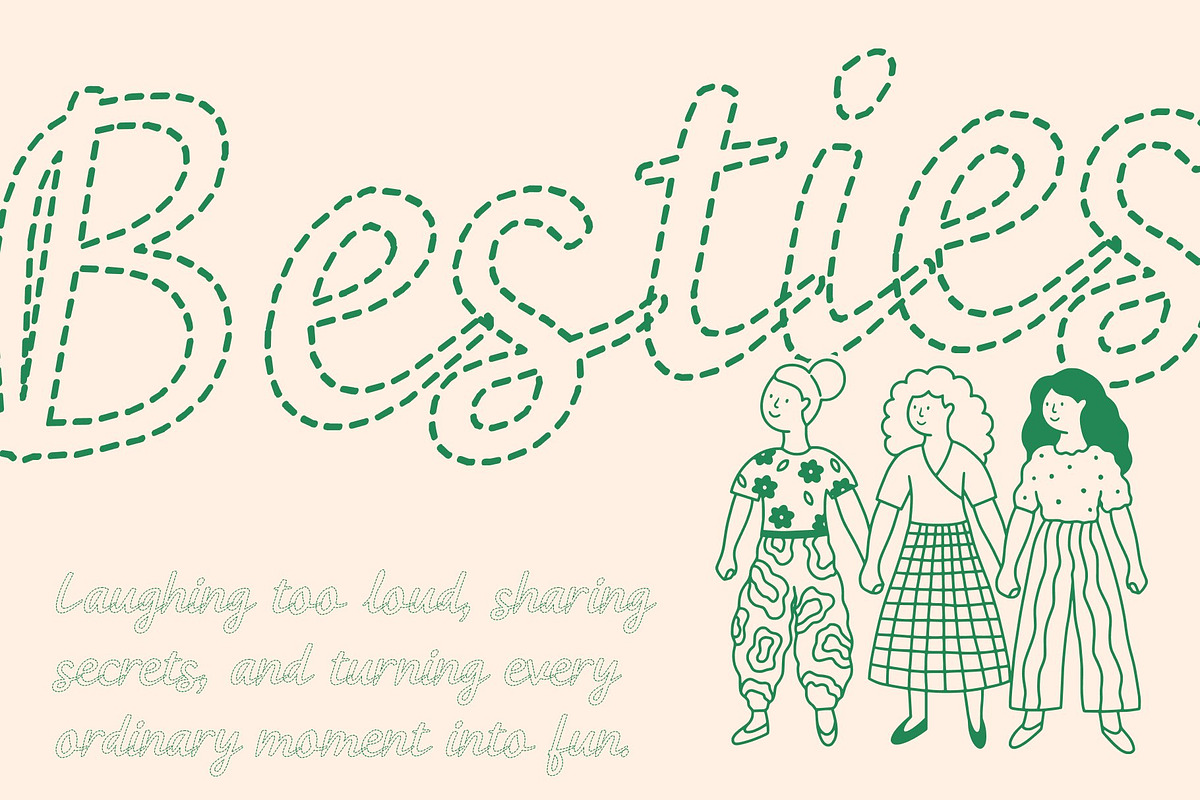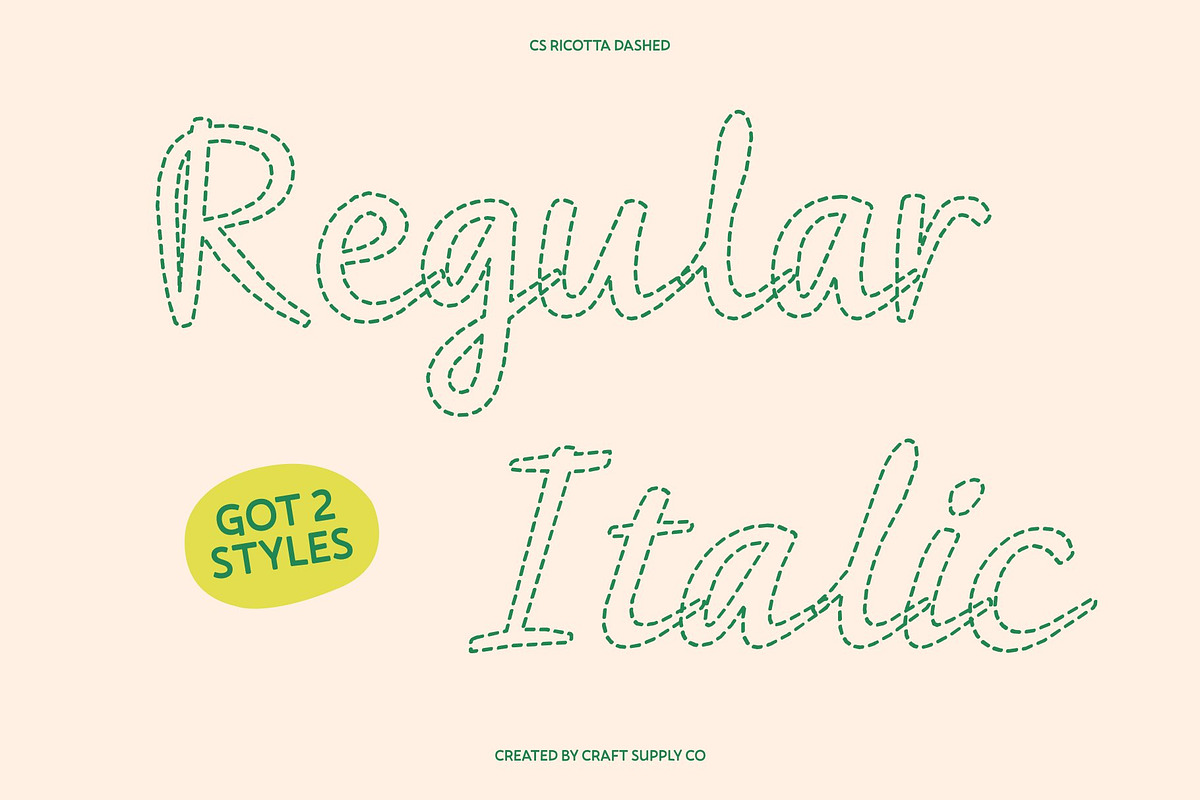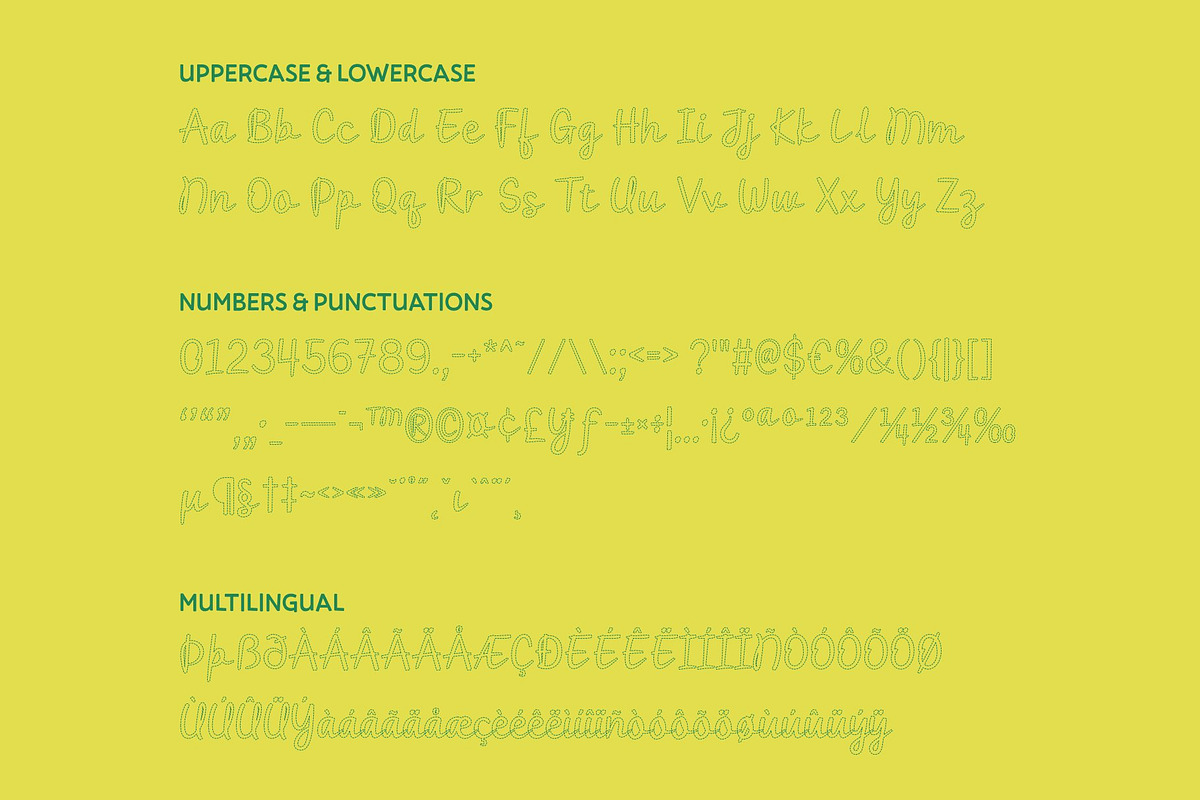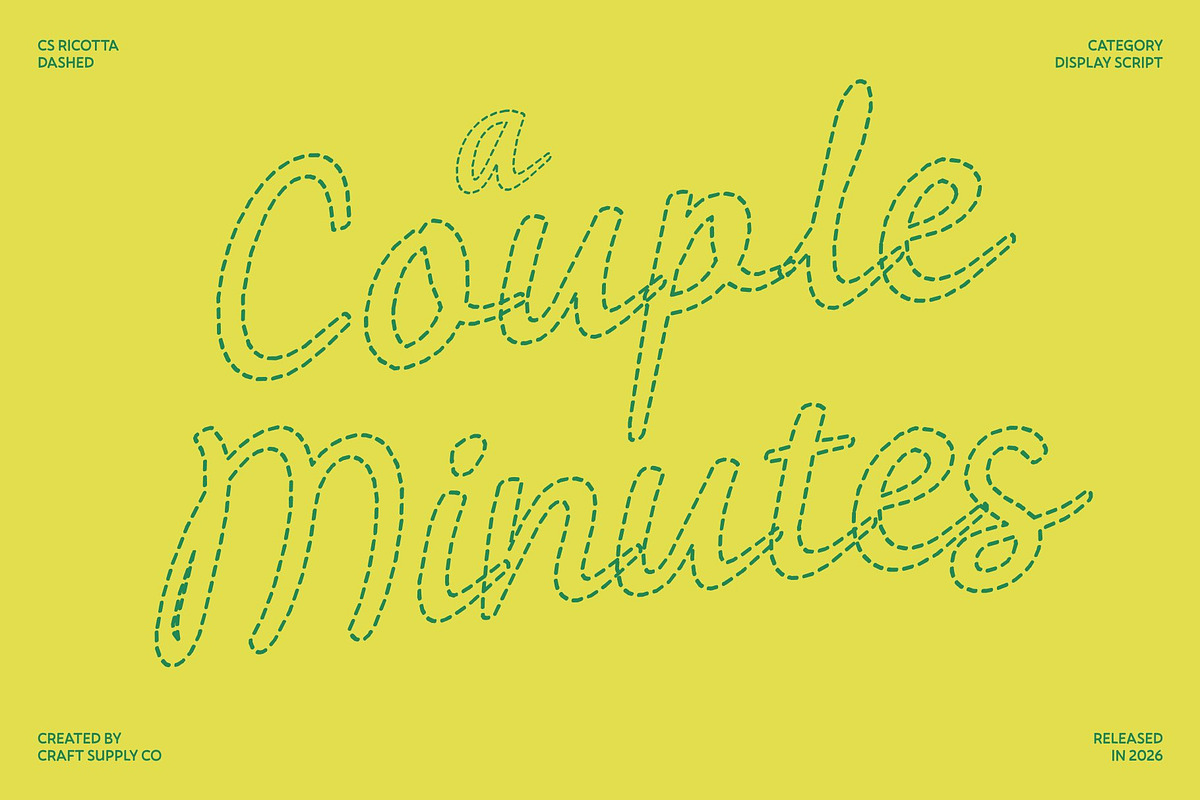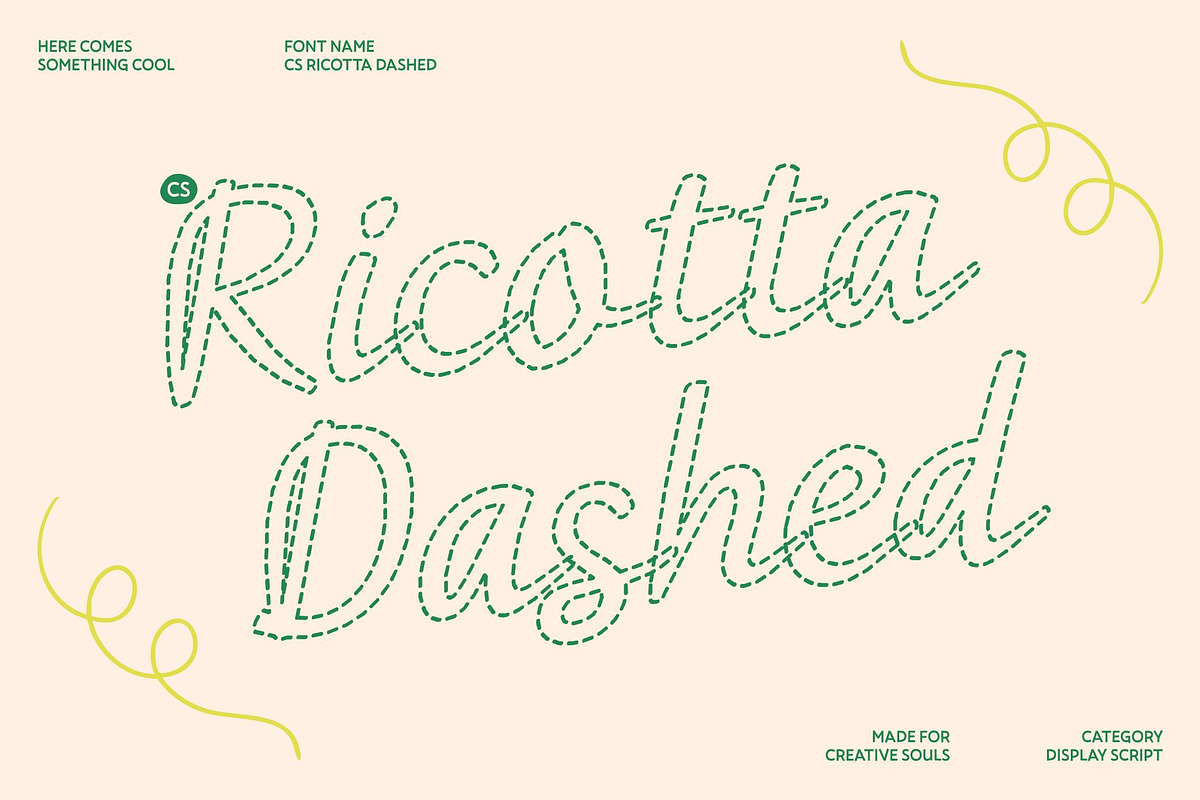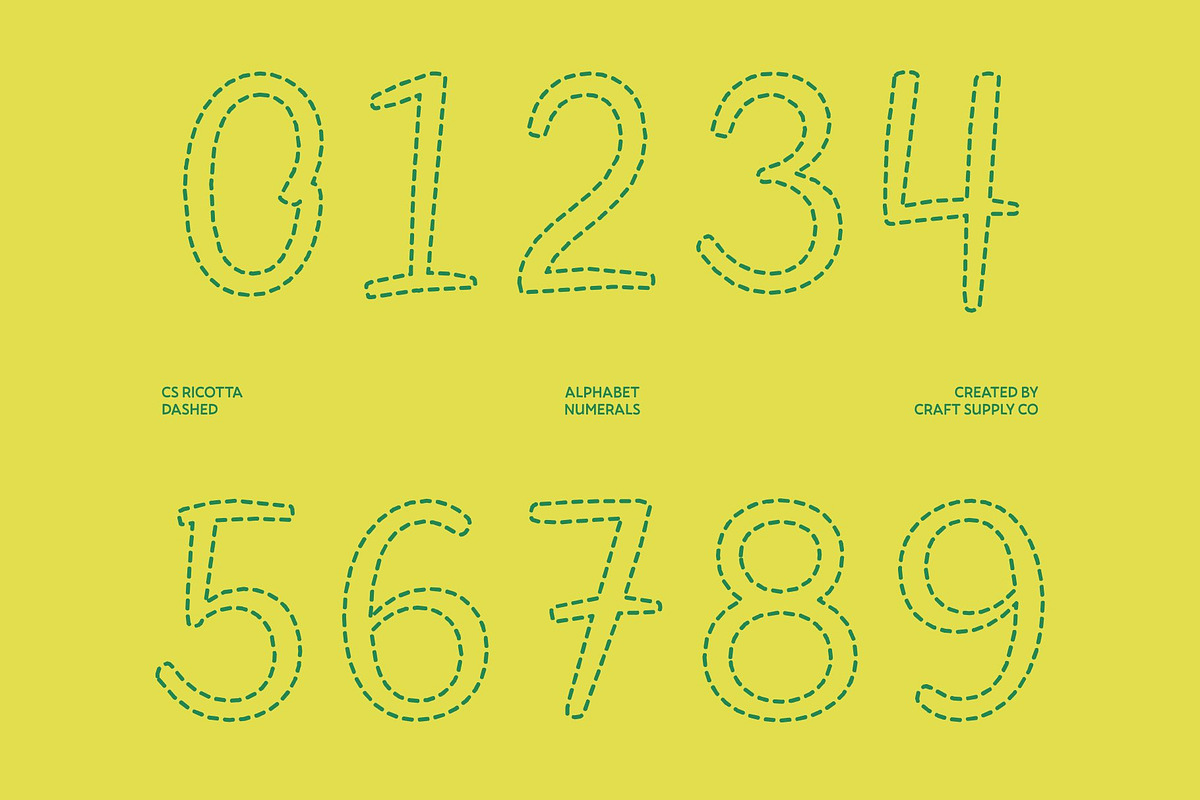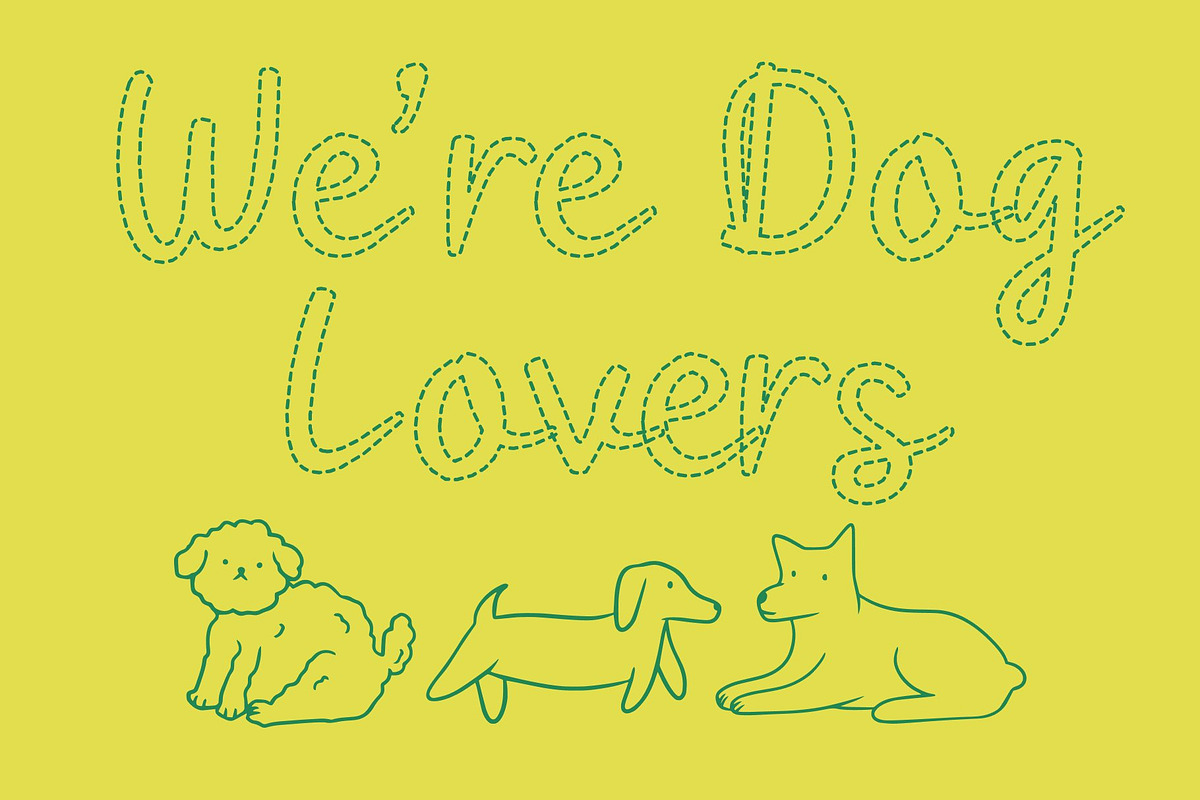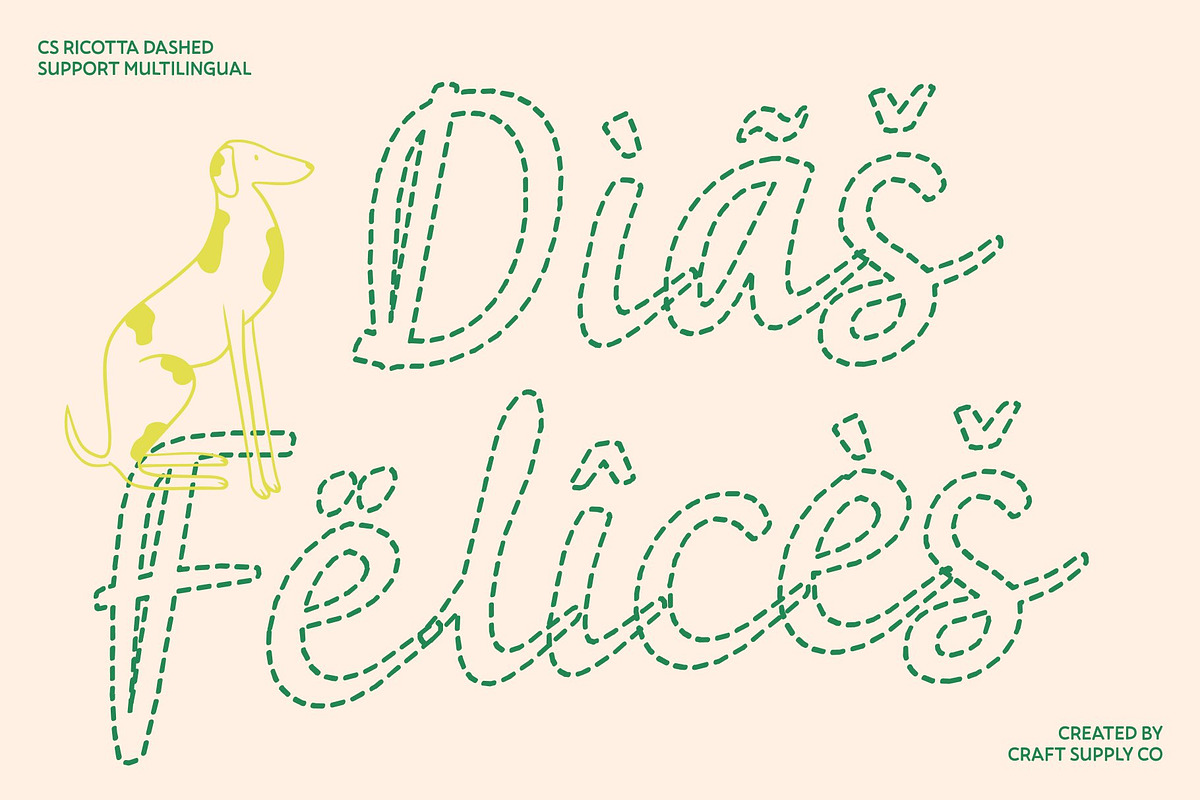
CS Ricotta Dashed
CS Ricotta Dashed – Handwritten Script Font with Romantic Curves
Elegant and Flowing Design This is a flowing handwritten script font that radiates charm and sophistication. Its graceful curves and stylish strokes capture the essence of natural handwriting, while the dashed detailing adds a light, handcrafted texture that gives the font a distinctive and artistic personality.
Romantic and Feminine Feel With its sweet and romantic character, this font brings warmth and intimacy to every project. The delicate motion of each letter feels expressive and personal, making it especially perfect for feminine design themes that require softness, beauty, and emotional appeal.
Perfect for Weddings, Fashion, and Branding This font is an ideal choice for wedding invitations, save-the-dates, greeting cards, and romantic stationery. It also shines in fashion branding, luxury logos, and elegant editorial layouts, delivering a stylish and memorable visual presence.
Unique Hand-Drawn Character The dashed stroke style enhances the hand-drawn look, helping the font stand out from traditional script fonts. This unique detail keeps your typography expressive, artistic, and full of personality, ensuring your designs feel distinctive and refined.
CS Ricotta Dashed Regular
CS Ricotta Dashed Italic